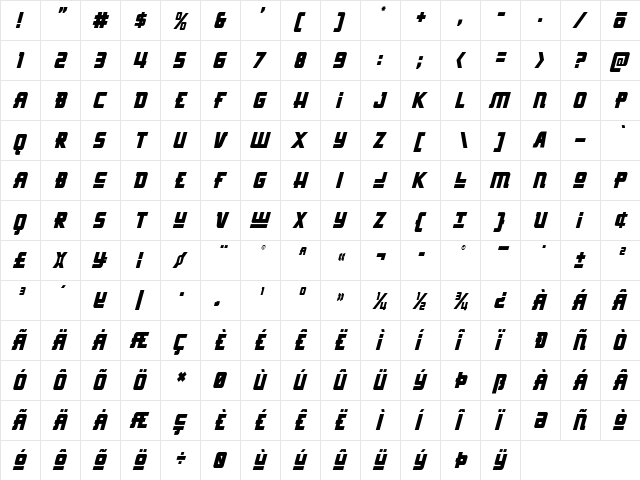
Hong Kong Hustle Condensed Italic Font Preview
Design Context for Hong Kong Hustle Condensed Italic Typeface
Hong Kong Hustle Condensed Italic is a composed and adaptable typeface that performs quietly and consistently across a wide range of design contexts. The dynamic lean of this cut emphasises speed and emphasis in any layout. The condensed width makes it efficient for tight spaces without sacrificing legibility.
Pro Tip: Try Hong Kong Hustle Condensed Italic for annotation and caption copy alongside an upright companion — the contrast in angle creates a dynamic but ordered typographic system.